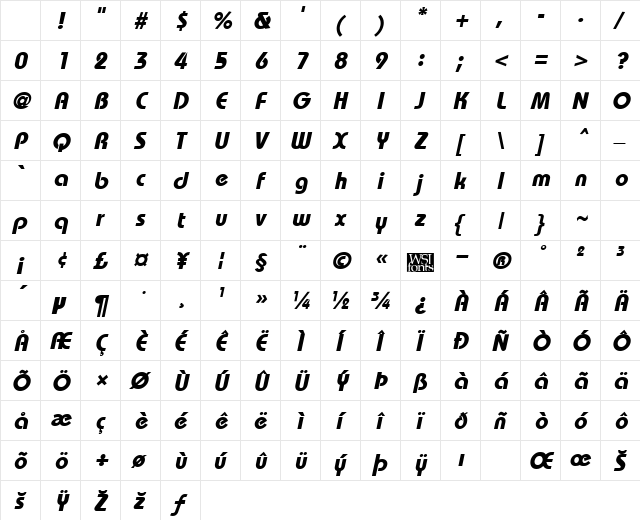
BordeauxHeavy Italic
BordeauxHeavy Family
BordeauxHeavy Italic
Complete BordeauxHeavy Italic glyph index. Displaying only characters natively supported by BordeauxHeavy Italic font.
Design Context for BordeauxHeavy
BordeauxHeavy is a composed and adaptable typeface that performs quietly and consistently across a wide range of design contexts. The slanted form adds forward momentum and visual energy.